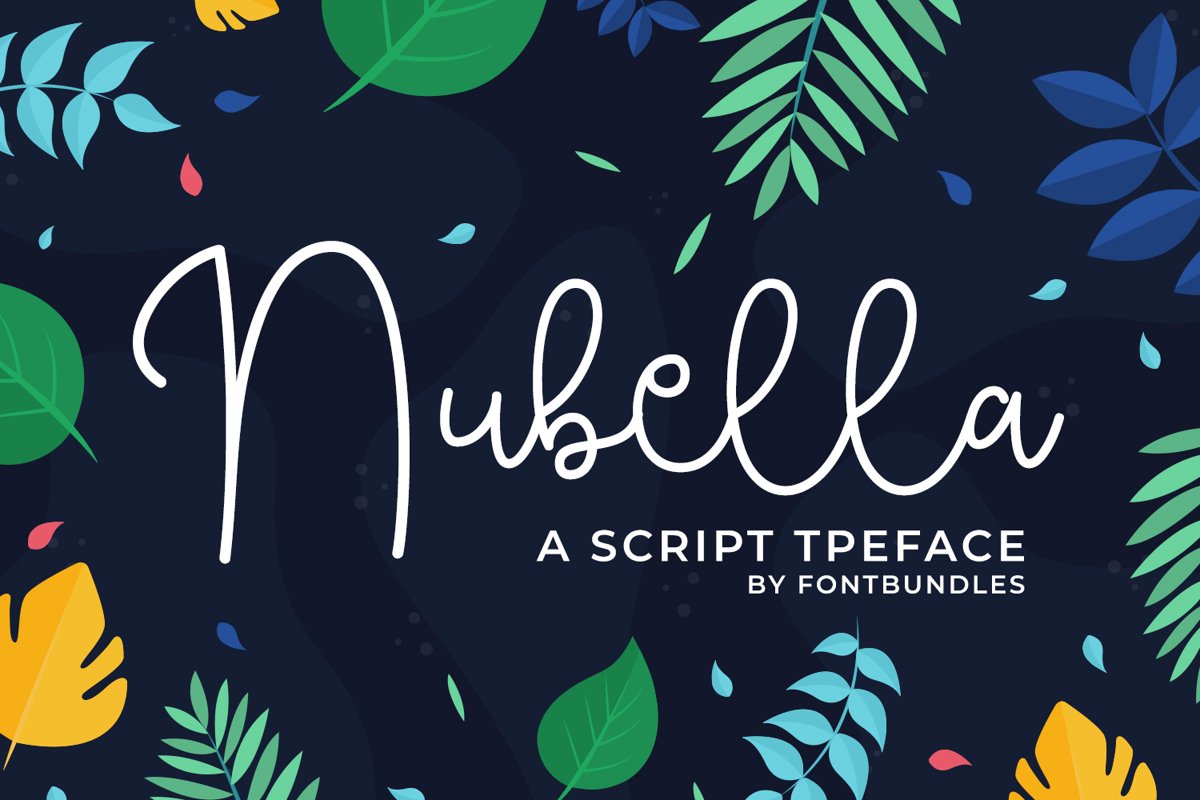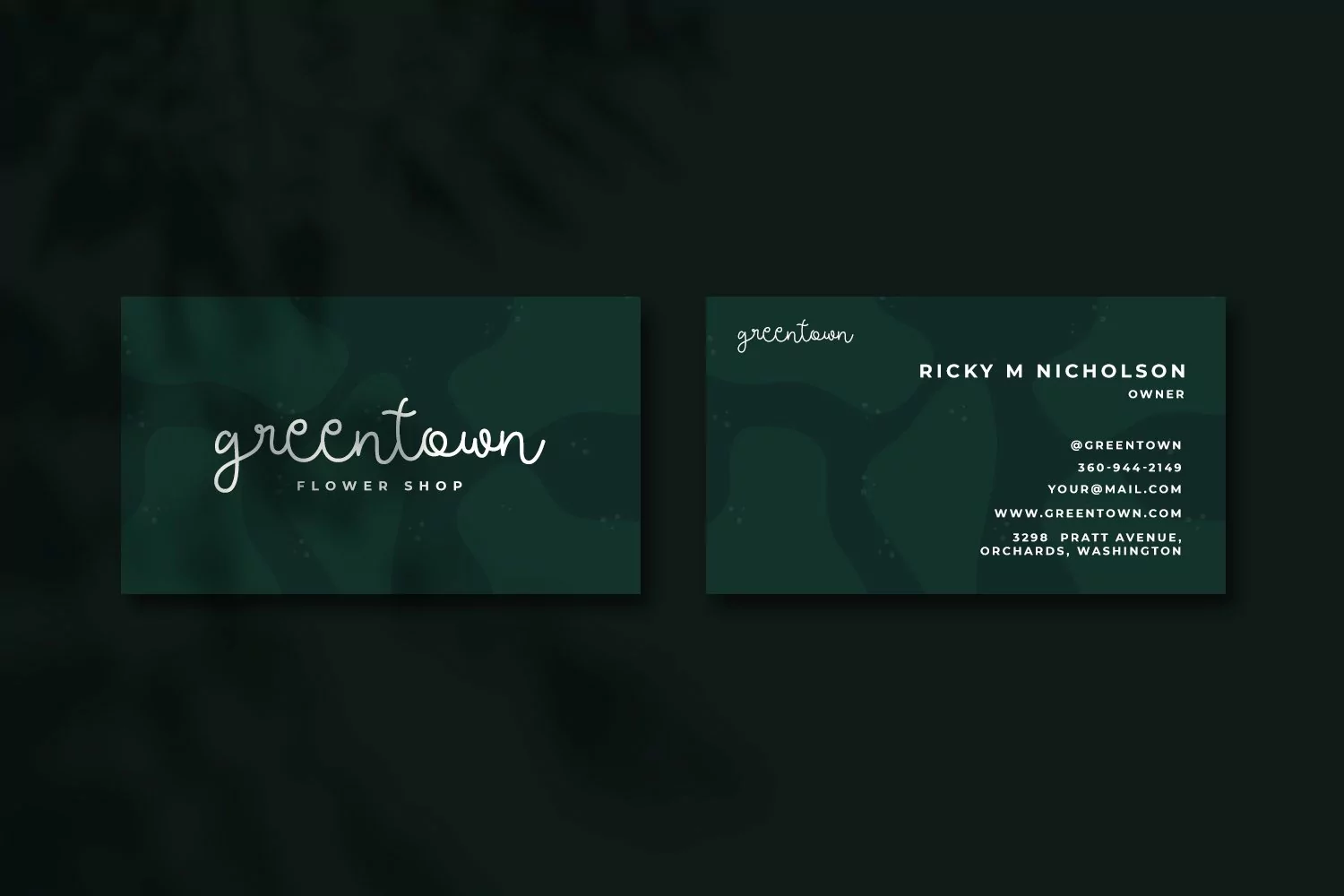
Nubella
Nubella is a script typeface. Perfect for display, quotes, business card, logo, logotype, signature, branding, packaging, merchandise, wedding needs, florist needs, craft and many more.